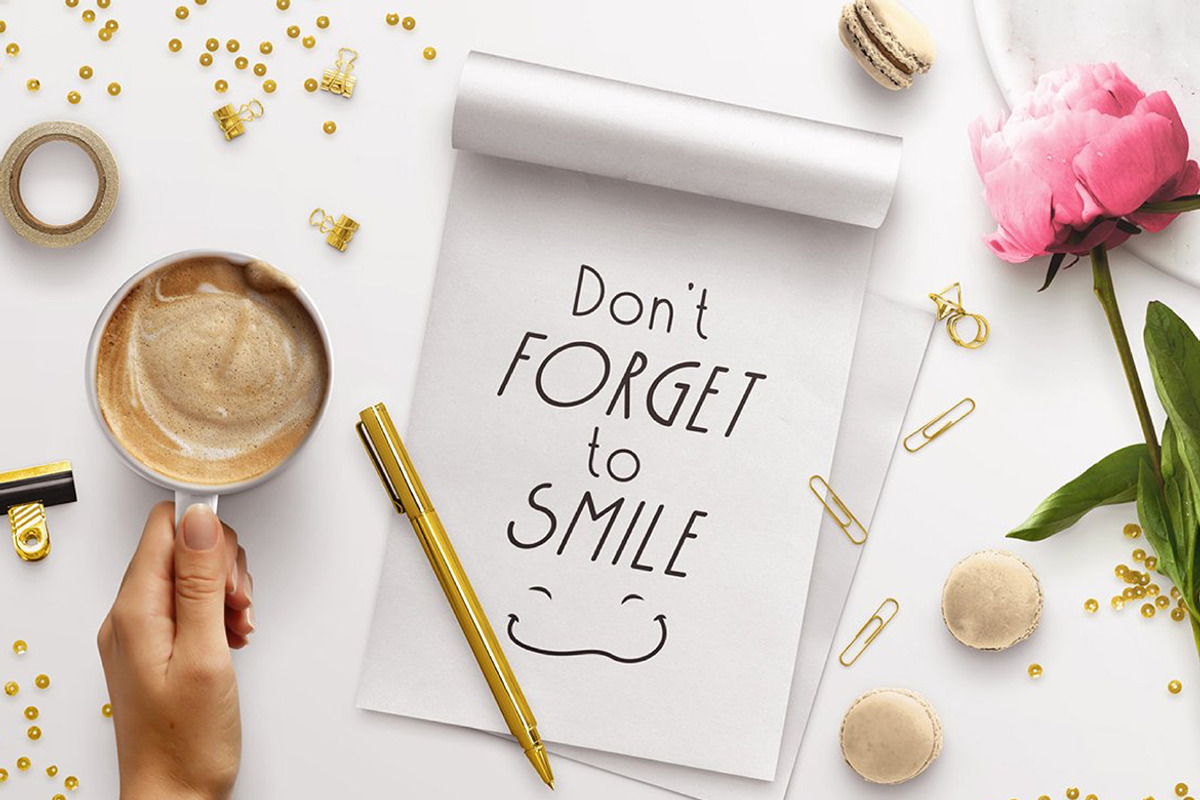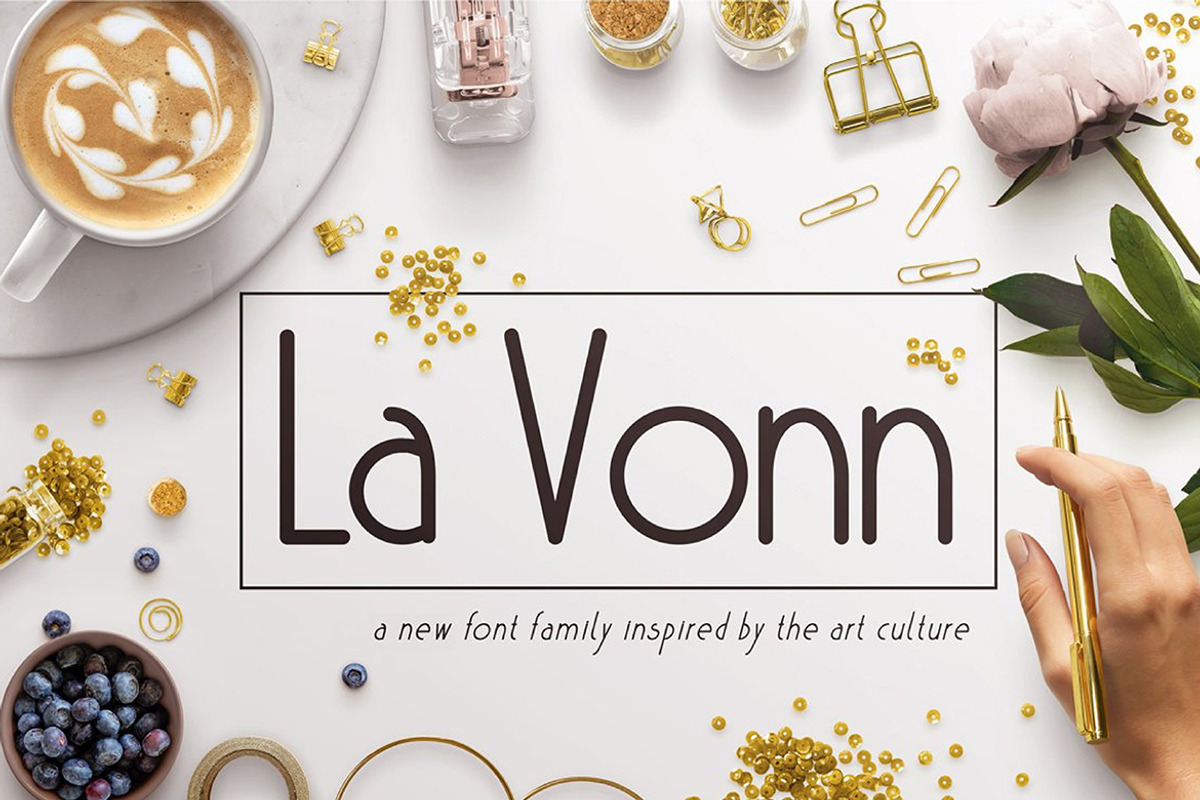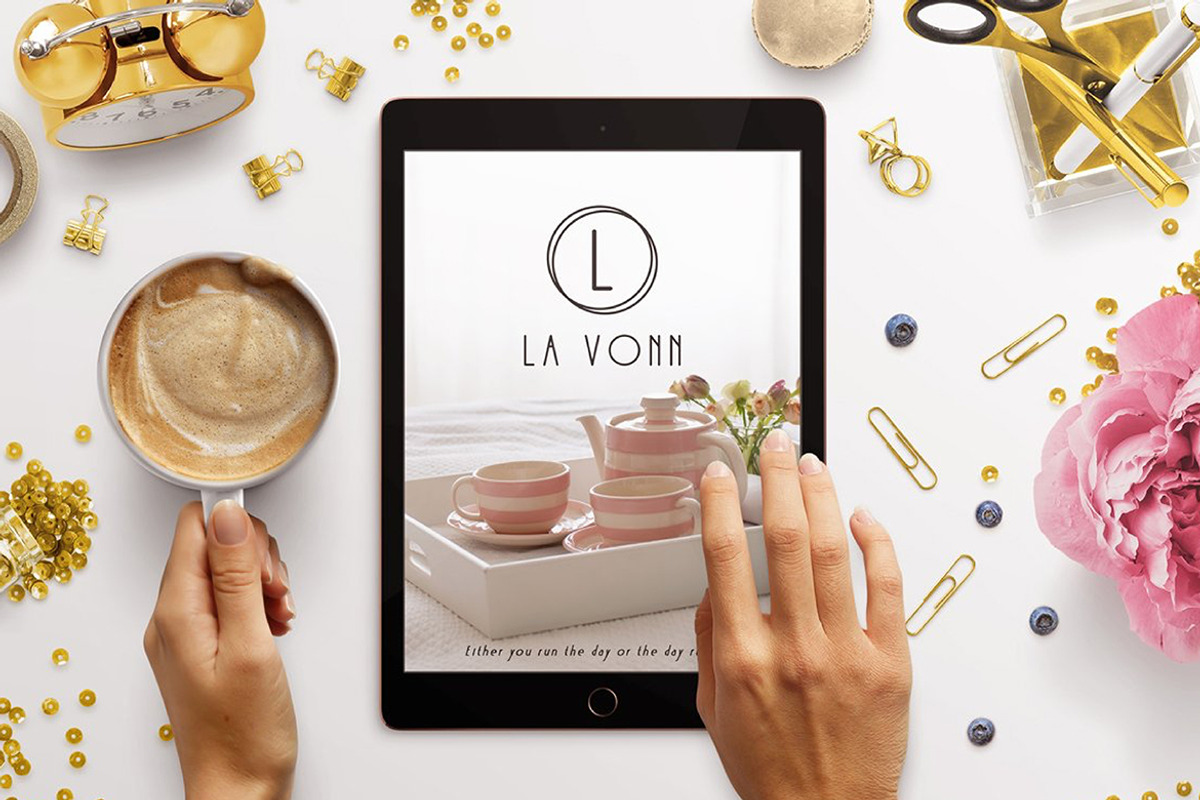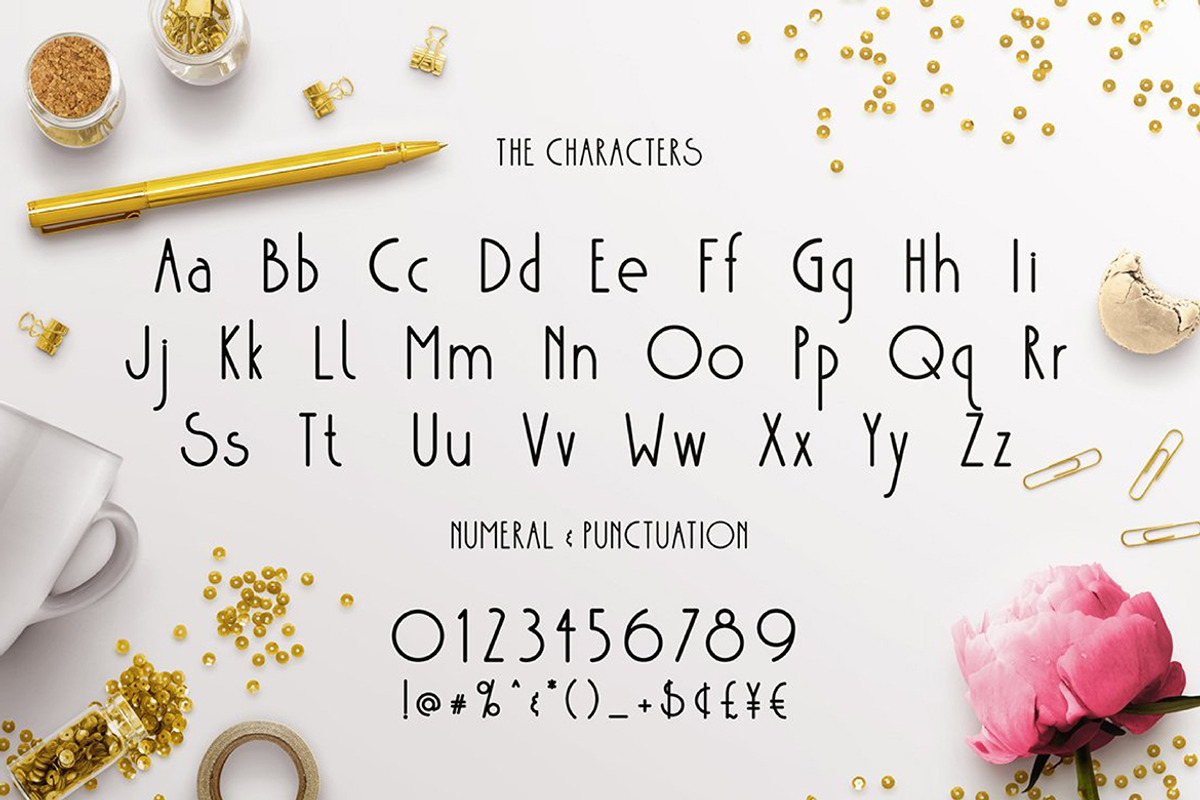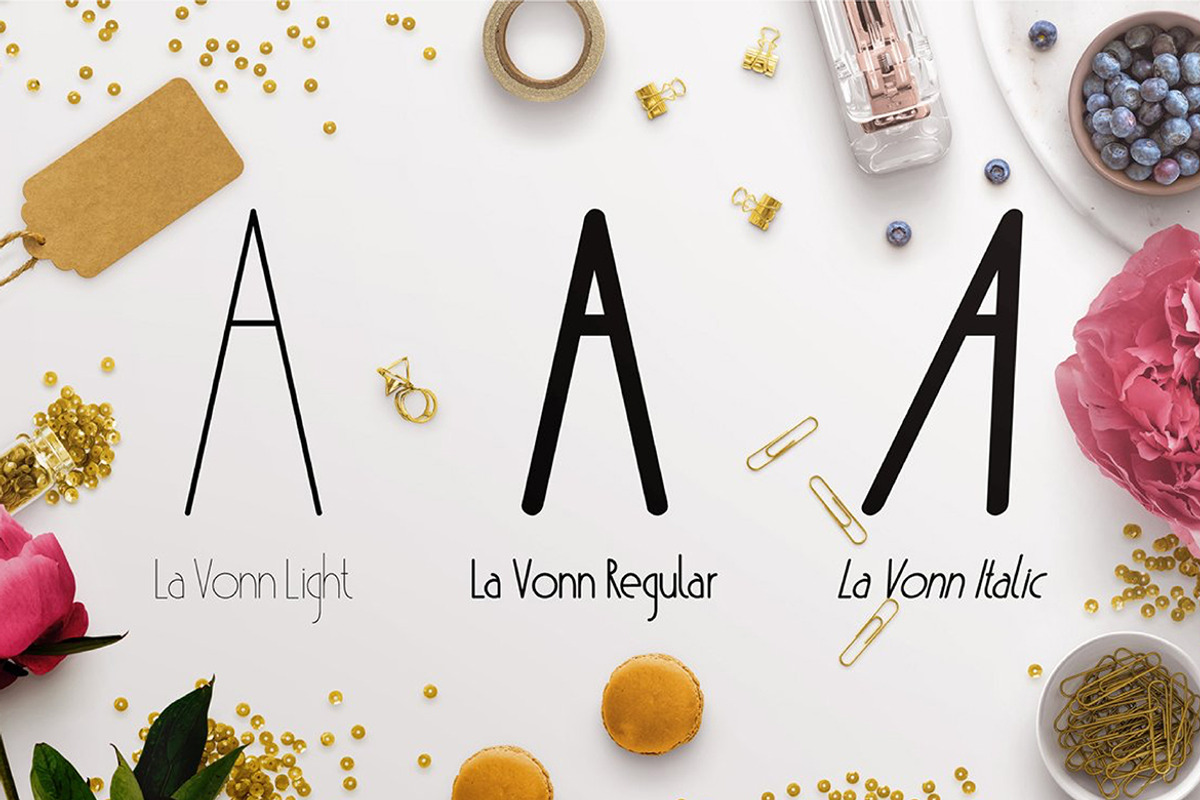
La Vonn
Introducing La Vonn, a new layered font family inspired by the art culture. This collection provides many combinations, possibilities and design options. As a display typeface, La Vonn is suitable for headlines, logotypes, signs, posters, greeting cards, letterheads, t-shirts, and many more.La Vonn comes with a three font family featuring uppercase, lowercase, numerals, symbols, punctuations and ligatures.